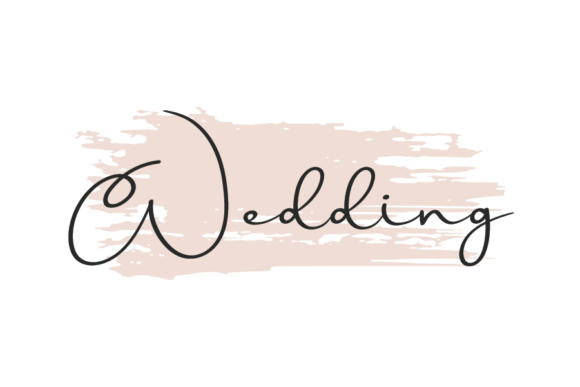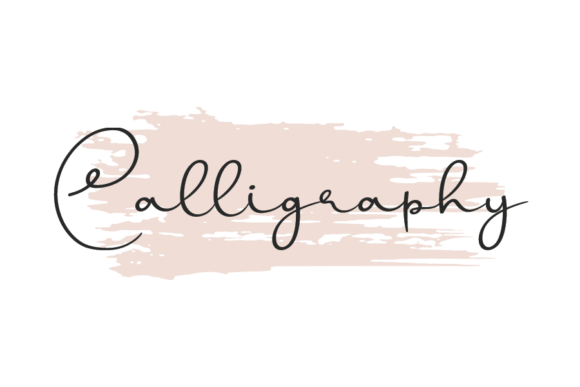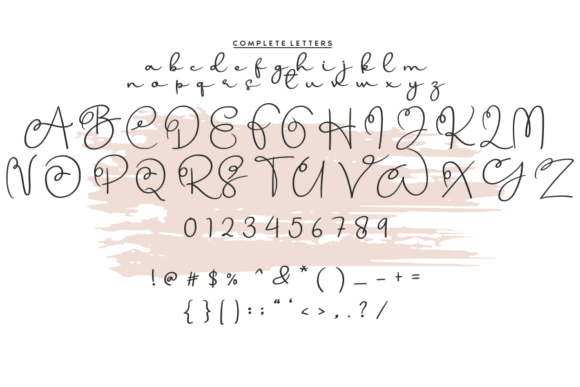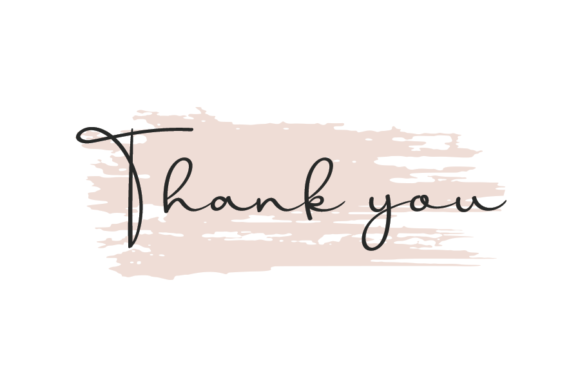
Introduction to Jamilla Font
Do you remember the feeling of excitement when working on a creative project, and you finally find that perfect font to bring your idea to life? For designers, it’s a moment of pure joy, and for me, that moment happened when I stumbled upon the Jamilla Font. This sweet, round lettered handwritten font is a game-changer in the world of design, offering a unique style that makes it incredibly versatile.
With its distinct and flowing lines, Jamilla Font is a high-quality design resource that can elevate any project, from a simple blog post to a complex branding strategy. Whether you’re working on a design project that requires a transparent background or a free download, Jamilla Font is a valuable asset that will take your creative endeavors to the next level.
Key Features of Jamilla Font
- High-quality, elegant script font suitable for creative projects
- Designed with a delicate, cursive style perfect for invitations, quotes, and other creative projects
- Includes a comprehensive character set with over 500 glyphs for extended language support
Honest Review: Jamilla Font
I recently had the opportunity to work with the Jamilla Font, and I must say it’s been a game-changer for my creative projects. The font’s elegant and sophisticated design makes it perfect for any high-quality design resource.
What works well: ✨ The Jamilla Font offers a wide range of styles and weights, making it easy to find the perfect fit for my design needs. The font also includes a transparent background, which is a huge plus when working with complex designs. The free download option is also a major advantage, as it saves me money and allows me to focus on my creative project.
Limitations: ⚠️ While the Jamilla Font is generally high quality, I did experience some issues with compatibility on certain platforms. Additionally, the font may not be suitable for all types of designs, particularly those that require bold or condensed fonts.
Overall, I’m extremely impressed with the Jamilla Font and would highly recommend it to any designer looking for a reliable and versatile font. With its high-quality design and free download option, it’s a must-have resource for any creative project.
- Wide range of styles and weights
- Perfect for high-quality design resources
Tips for Getting the Most Out of Jamilla Font
For the best results, use the Jamilla Font in conjunction with other high-quality design resources, such as images and graphics. Experiment with different font sizes, colors, and styles to create a unique and visually appealing design. You can also use the font in a variety of creative projects, from logos and branding to presentations and posters.
The Jamilla Font is a versatile design resource that can be used in a variety of creative projects, including:
- Logos and branding
- Presentation slides
- Websites and digital content